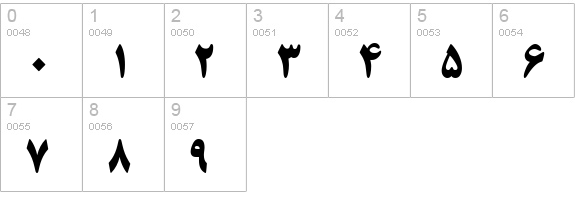
B Titr Bold Font Details
B Titr Bold is a strong, high-contrast variant in the B typeface family \xE2\x80\x94 well suited to headlines, attention-grabbing titles, and strong calls-to-action.